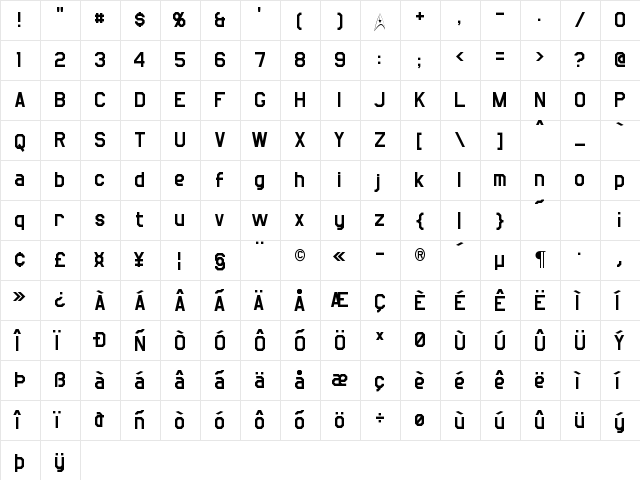
Jefferies Regular
| Foundry | Pixel Sagas |
| Designer | Neale Davidson |
Design Context for Jefferies Typeface
Jefferies offers clean, dependable letterforms without strong stylistic allegiance, making it a practical choice for designers who need flexibility.